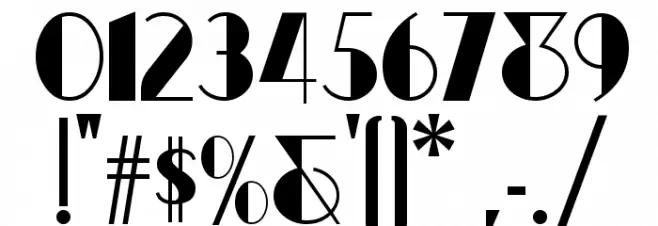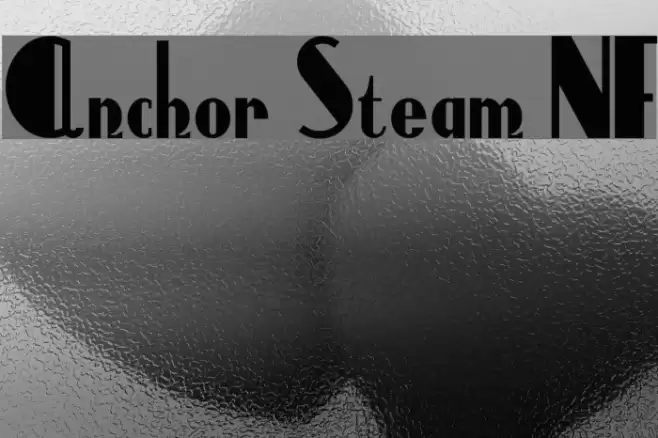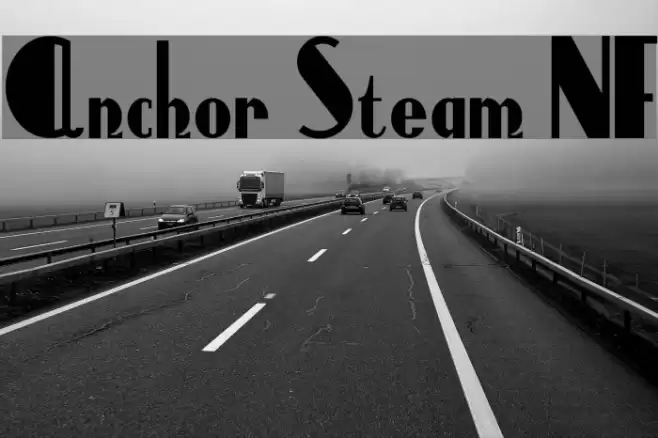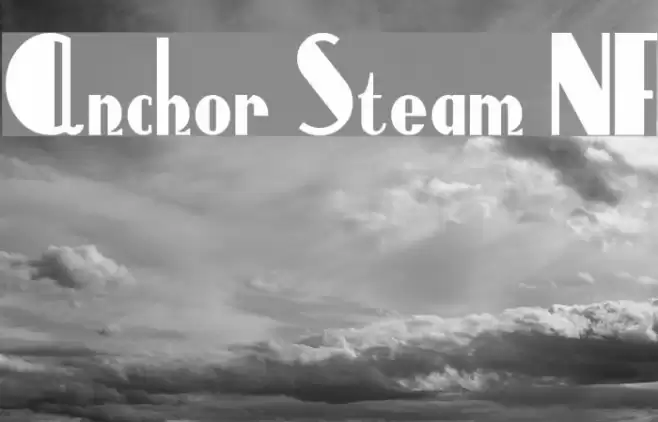
Anchor Steam NF Font
Anchor Steam NF Description
This font features a bold and striking design with a distinct Art Deco influence. The uppercase letters are characterized by geometric shapes and sharp angles, creating a sense of elegance and sophistication. The lowercase letters maintain a similar style, with a slightly more rounded appearance that adds a touch of softness to the overall look. The numerals are uniquely styled, with some digits featuring unexpected curves and angles that enhance the font's decorative appeal. Special characters are designed to match the bold and artistic theme, making them stand out in any design. This font is perfect for projects that require a vintage or retro aesthetic, while still maintaining a modern edge.
| Proposed Projects | Ideal for vintage-themed posters, branding, and editorial design. |